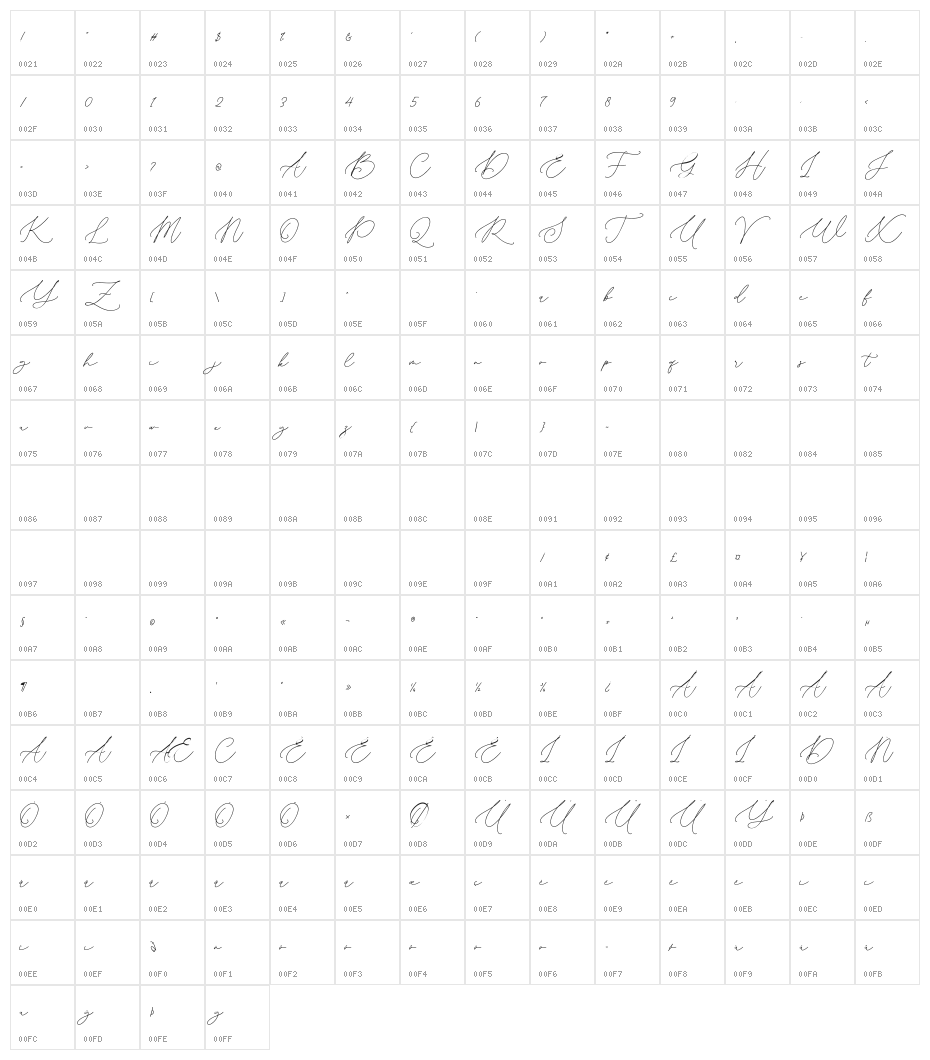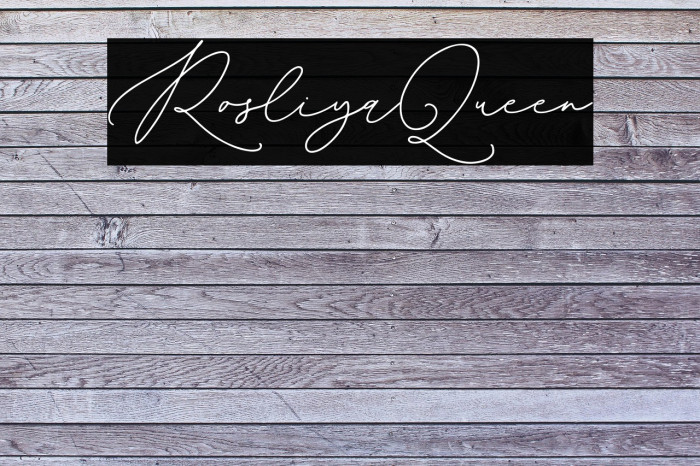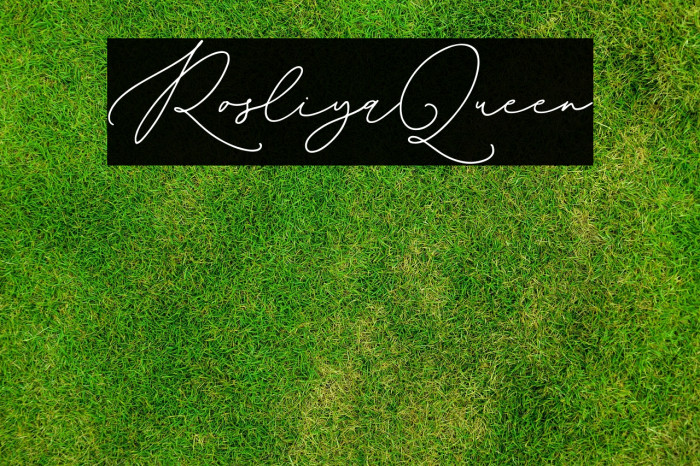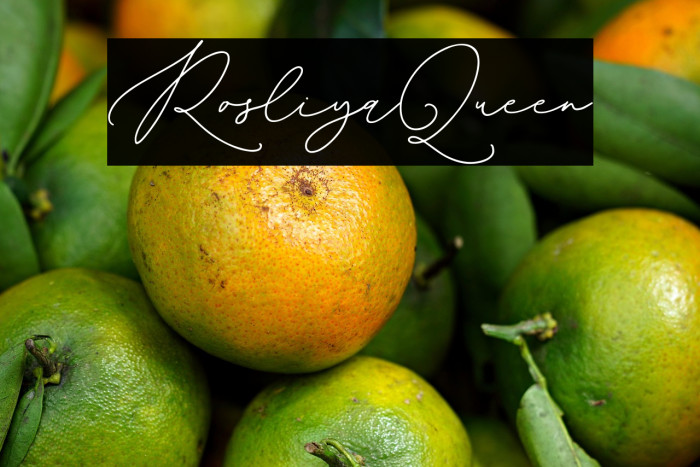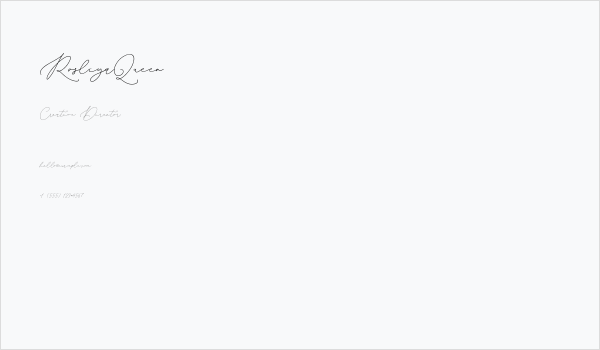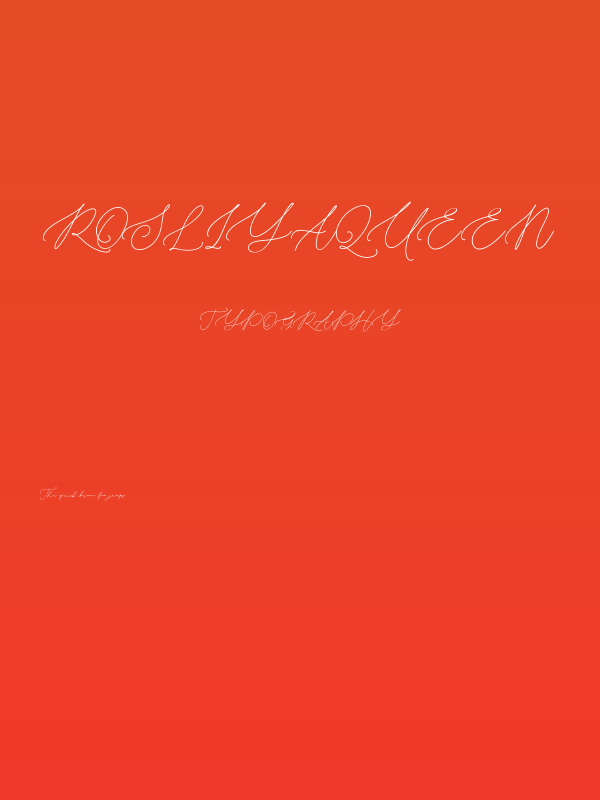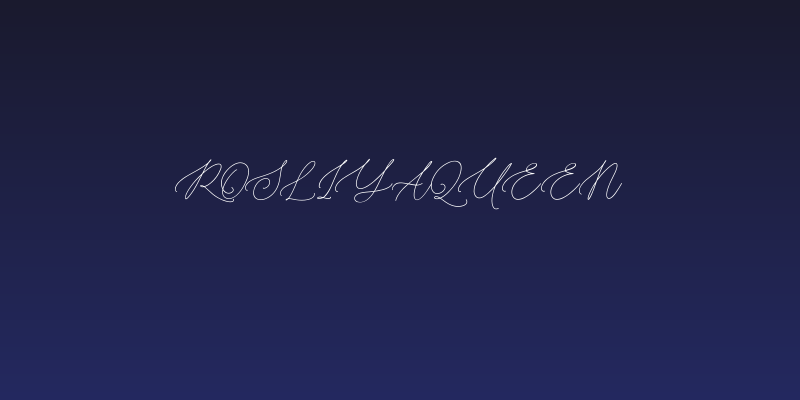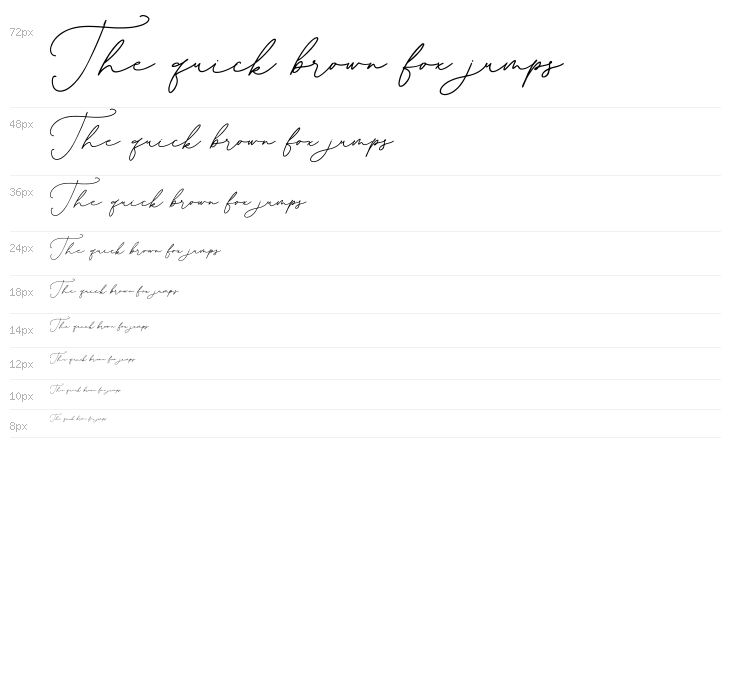
RosliyaQueen Font
RosliyaQueen Description
Elegant and flowing script font with a handwritten appearance, featuring smooth curves and connected letters.
| Overall Style | Elegant and decorative |
| Use Case | Logos, invitations, and decorative text. |
| Proposed Projects | Invitations, greeting cards, branding, and elegant designs. |